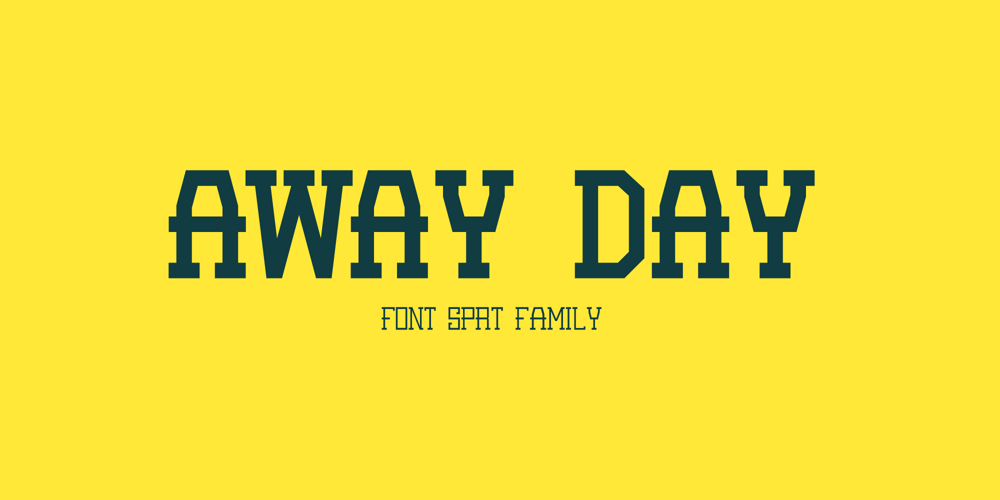
Away Day Font Family was designed by Mugi Raharjo and published by Nian Keun Studio. Away Day contains 5 styles and family package options. Away Day Font Family was inspired by the creator’s love for sports. This font’s design style is inspired by some strong and sturdy sports. You can also use this font for graphic design, sports branding, sports shirts, quotes, design titles, sports-themed movies to television programs.if you want more you can explore this font in the form of merchandise such as key chains, stickers or greeting cards. try and feel the fun.Features:1. Uppercase & Lowercase2. Standard Ligature3. Numerals & Punctuations4. PUA EncodedThank you for coming to my shop and enjoying other fonts.